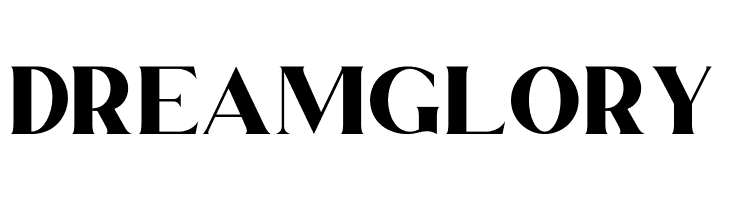
A modern serif font with elegant curves and balanced proportions.
A bold, modern font with strong geometric shapes and clean lines.
A bold, geometric font with a futuristic and cohesive design.
A modern serif font with high contrast and geometric influences.
A modern, high-contrast serif font with elegant, geometric forms.
A modern, thin sans-serif font with a minimalist style.
A thin, elongated font with a rough, hand-drawn texture.
A bold, geometric font with strong, blocky letterforms and high contrast.
A dynamic, slanted font with a hand-drawn, energetic style.
A modern, handwritten font with thin, elegant strokes and a slight slant.
A bold, playful font with rounded, hand-drawn characters.
A bold, modern sans-serif font with smooth, rounded edges and a clean appearance.
An ornate, vintage-style font with intricate swirls and loops.
A bold, gothic-style font with intricate, symmetrical designs and sharp angles.
A segmented, futuristic font with a retro synthwave aesthetic.
A dot matrix style font inspired by LED displays, offering a modern and digital look.
A playful, hand-drawn style font with uneven, dynamic letterforms.
A bold, outlined serif font with a three-dimensional effect.
A distressed, grunge typeface with a hand-drawn, vintage aesthetic.
A bold, playful font with a three-dimensional shadow effect.
A bold, outlined font with a striking, dimensional appearance.
A bold, decorative font with a distressed, vintage texture.
A playful, bold font with a hand-drawn, whimsical style.
A playful, bold font with a hand-drawn, dynamic style.
A playful, bold font with irregular shapes and dynamic strokes.
A playful, dotted font with a whimsical and creative style.